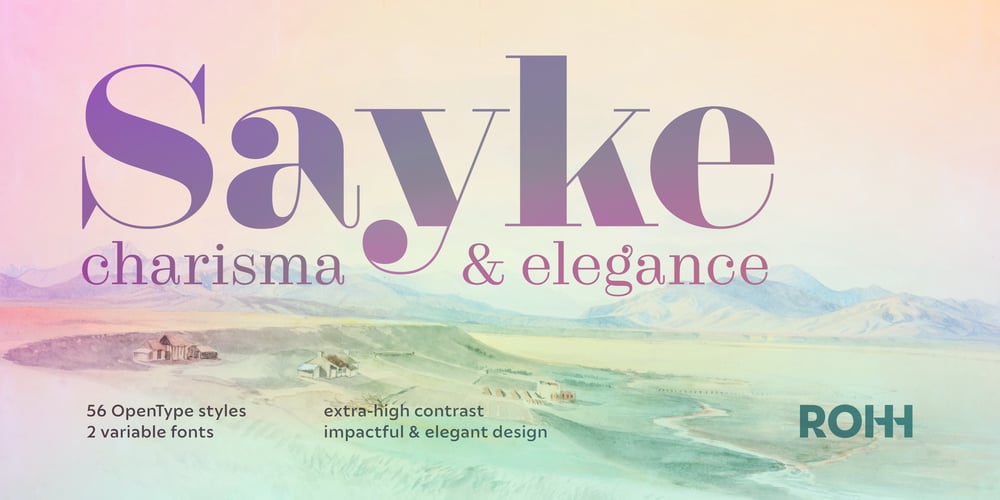
Sayke
Sayke font
Sayke Font Family was designed by Roch Modrzejewski and published by ROHH. Sayke contains 58 styles and family package options. Hard to tell – is Sayke more classy or more fly. This is a sophisticated high-contrast didone—smart, sharp, and just a little bit rebellious, radiating with this kind of elegance that commands attention without even trying.Sayke comes in seven weights across four optical sizes, featuring beautiful and charismatic true italic styles. It begs to be used for high-fashion branding, luxury magazines, or artsy book covers. Works amazing for everything from short paragraphs and headlines to logos and huge display environments. Sayke also plays well in dynamic settings, offering variable fonts with weight and optical size axes—ideal for responsive design as well as animations.Key Features• 56 styles (7 weights + italics)• 2 variable fonts (2-axis)• 4 elegant optical sizes• beautiful true italics• over 540 meticulously crafted glyphs• Extended Latin language support